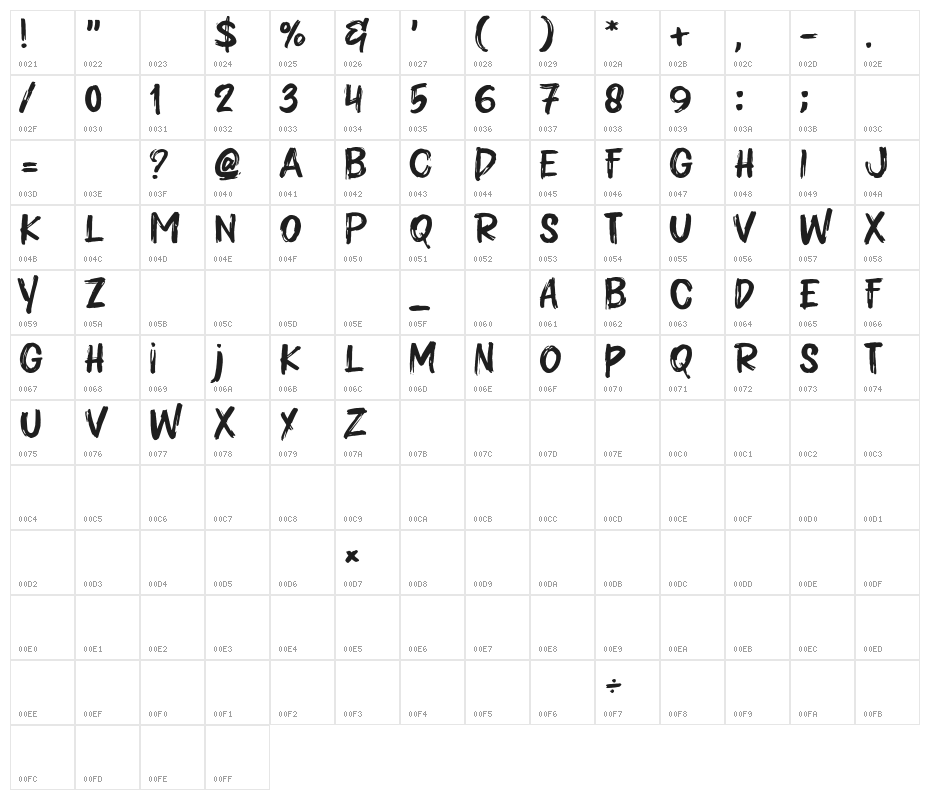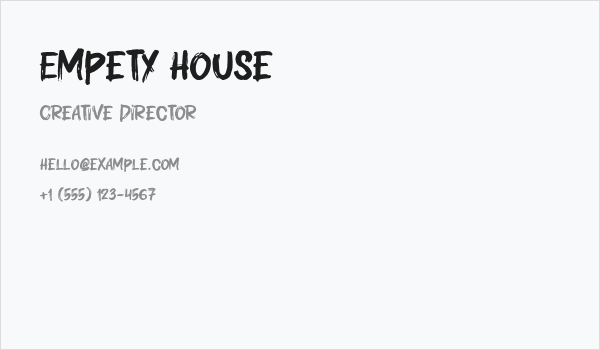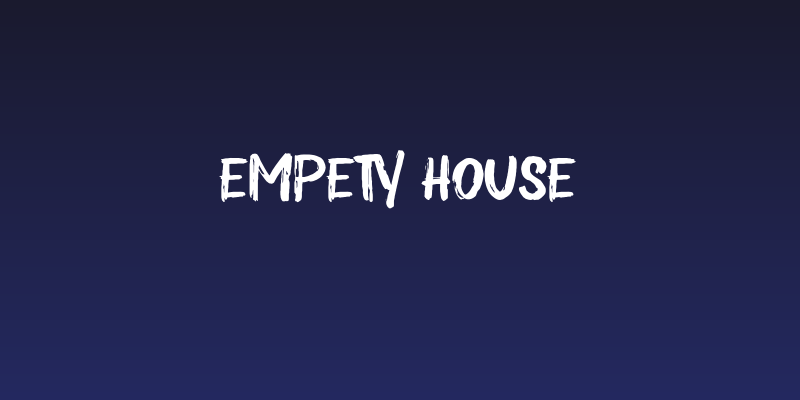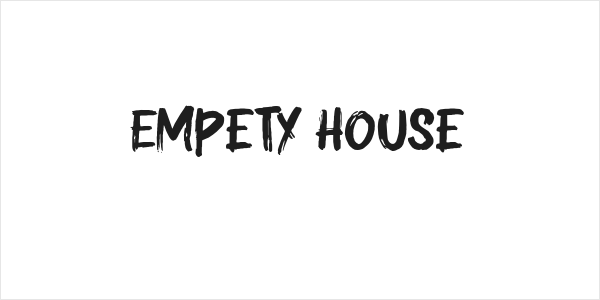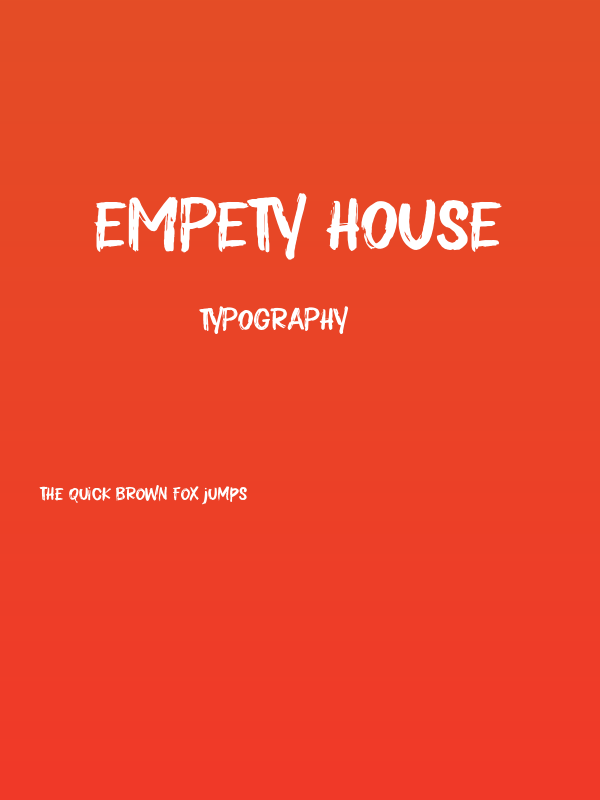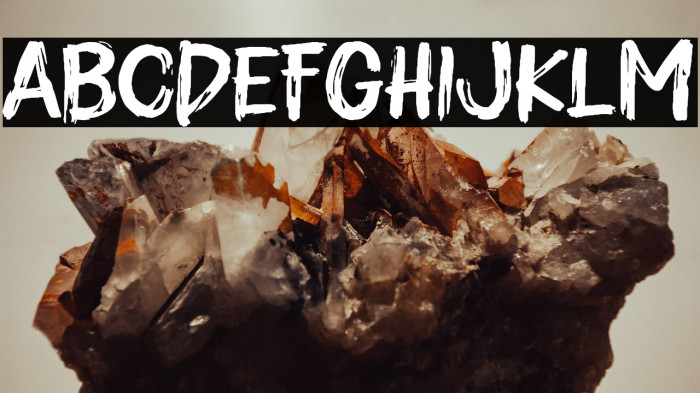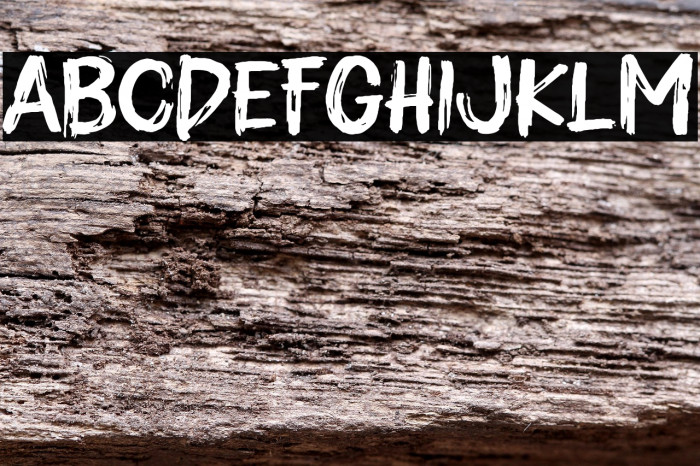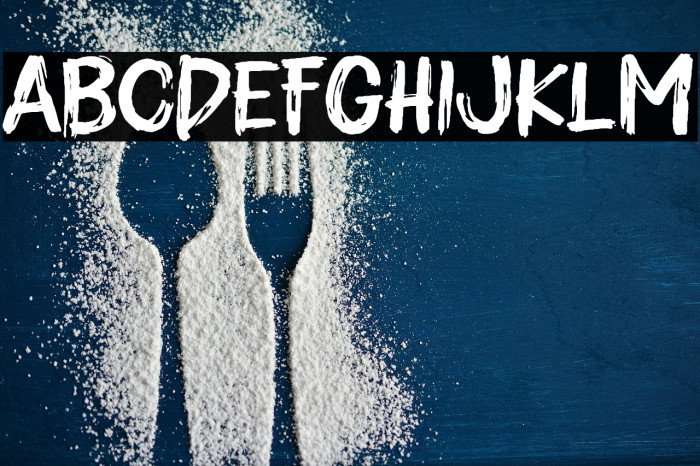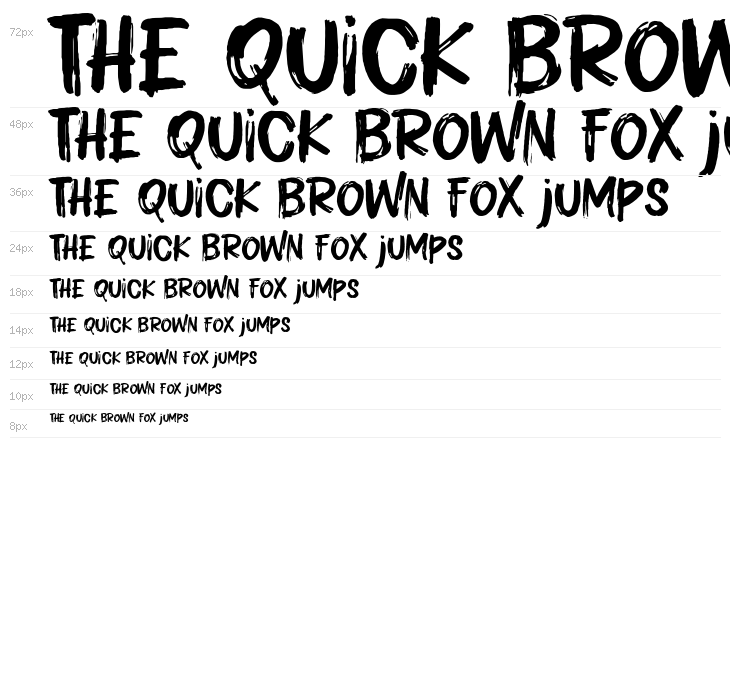
Empety House Font
Empety House Description
This font exhibits a bold, expressive style with brush-like strokes that give it a dynamic and artistic appearance. The characters are crafted with irregular edges and varying thickness, creating a sense of movement and energy. The uppercase and lowercase letters maintain a consistent style, while the numbers and special characters complement the overall design. This font's unique, hand-painted look makes it stand out, offering a creative and informal vibe.
| Proposed Projects | Ideal for creative projects such as posters, album covers, branding for artistic ventures, and any design requiring a bold, dynamic statement. |